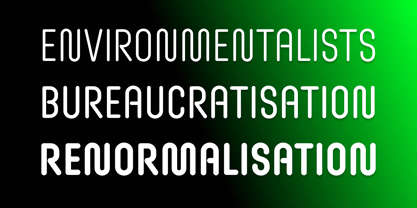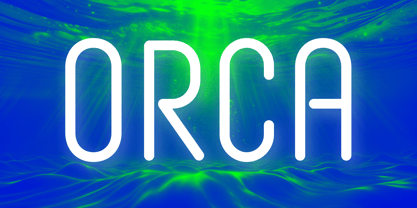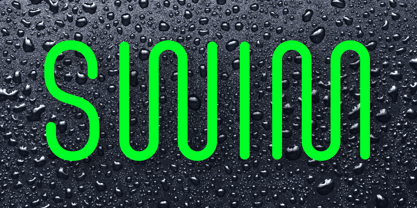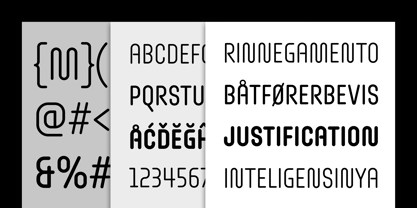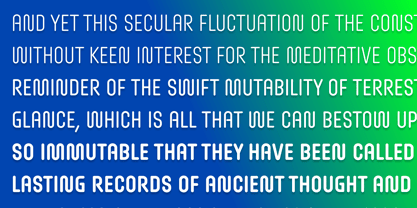
Omnium Tagline
by GarageFonts
The Omnium Tagline Font Family was designed by Robby Woodard and published by GarageFonts. Omnium Tagline contains 3 styles and family package options. More about this family
Omnium Tagline distills the Omnium system into a focused, high-impact voice built for clarity at a glance. Inspired by the iconic masthead of Omni magazine, it channels a distinctly retrofuturistic vision—optimistic, technological, and forward-looking. Its condensed, all-caps construction creates a tight, efficient rhythm, maximizing space while amplifying presence in headlines and short-form messaging. The geometric foundation remains precise and structured, while subtle humanist refinements prevent the design from feeling rigid or mechanical. This balance gives Omnium Tagline a tone that is both confident and accessible, with a crisp, graphic immediacy. Designed for titles, branding, and interface elements, it delivers a streamlined expression of the Omnium family’s identity—where nostalgia and modernity converge in a compact, unmistakable form.